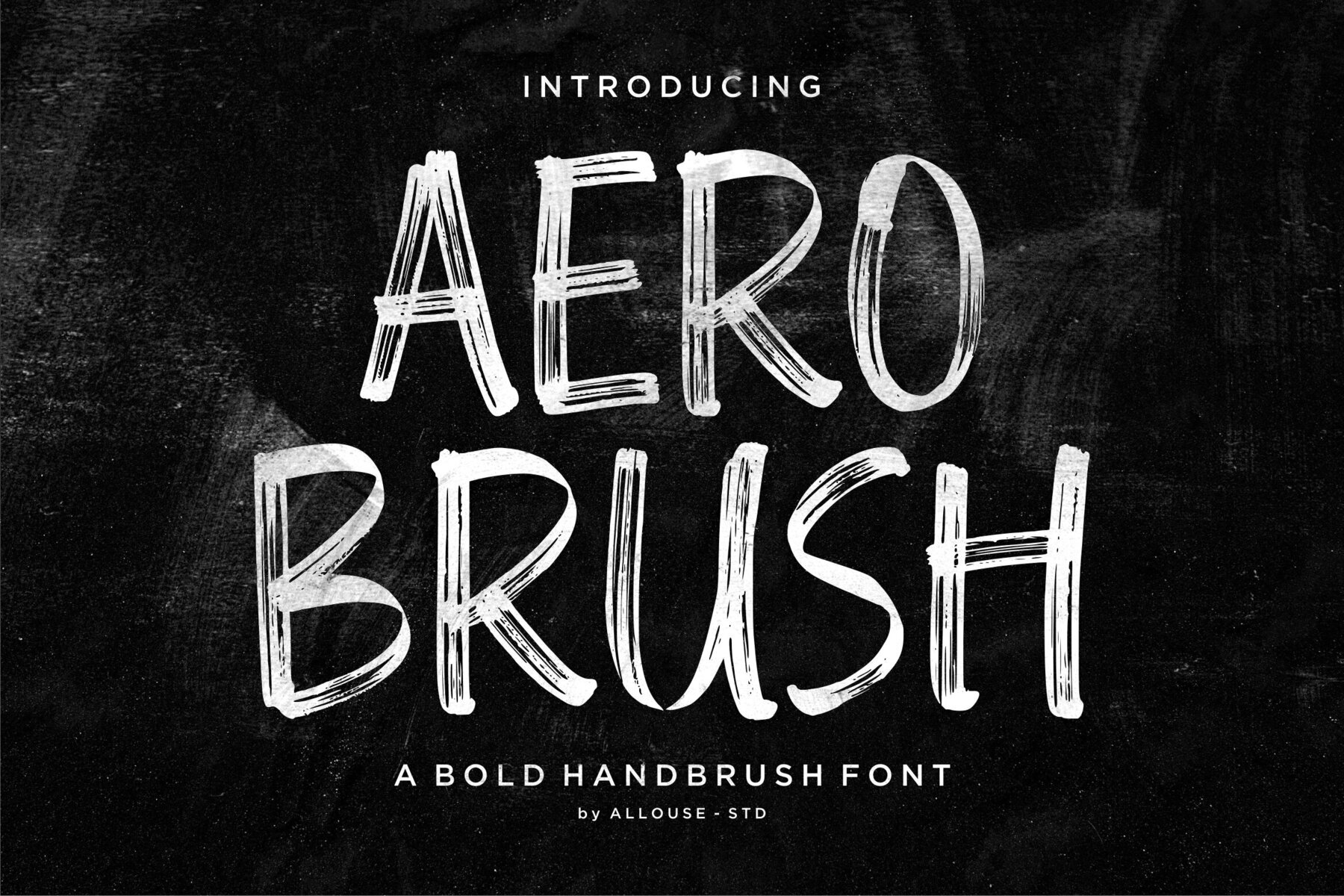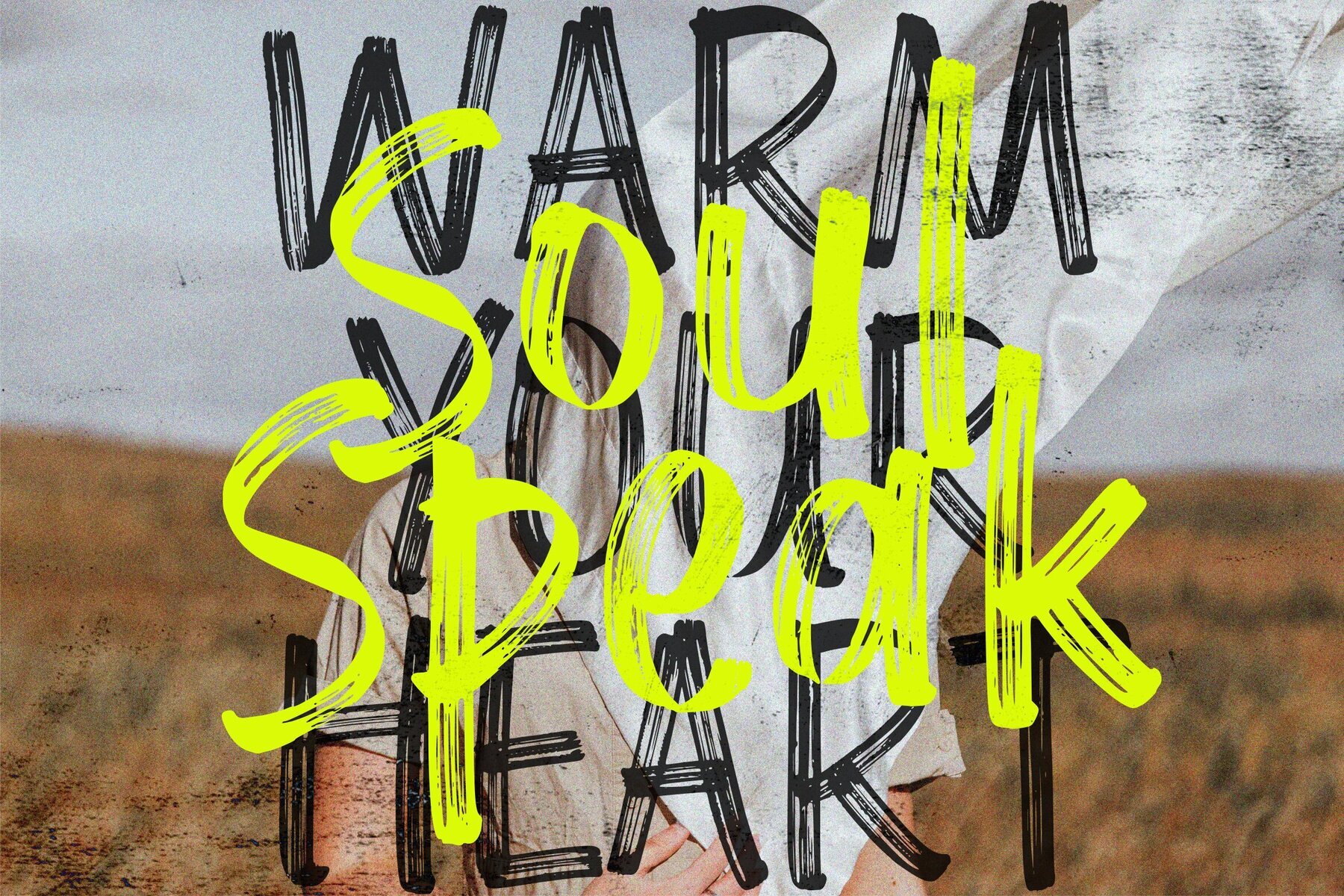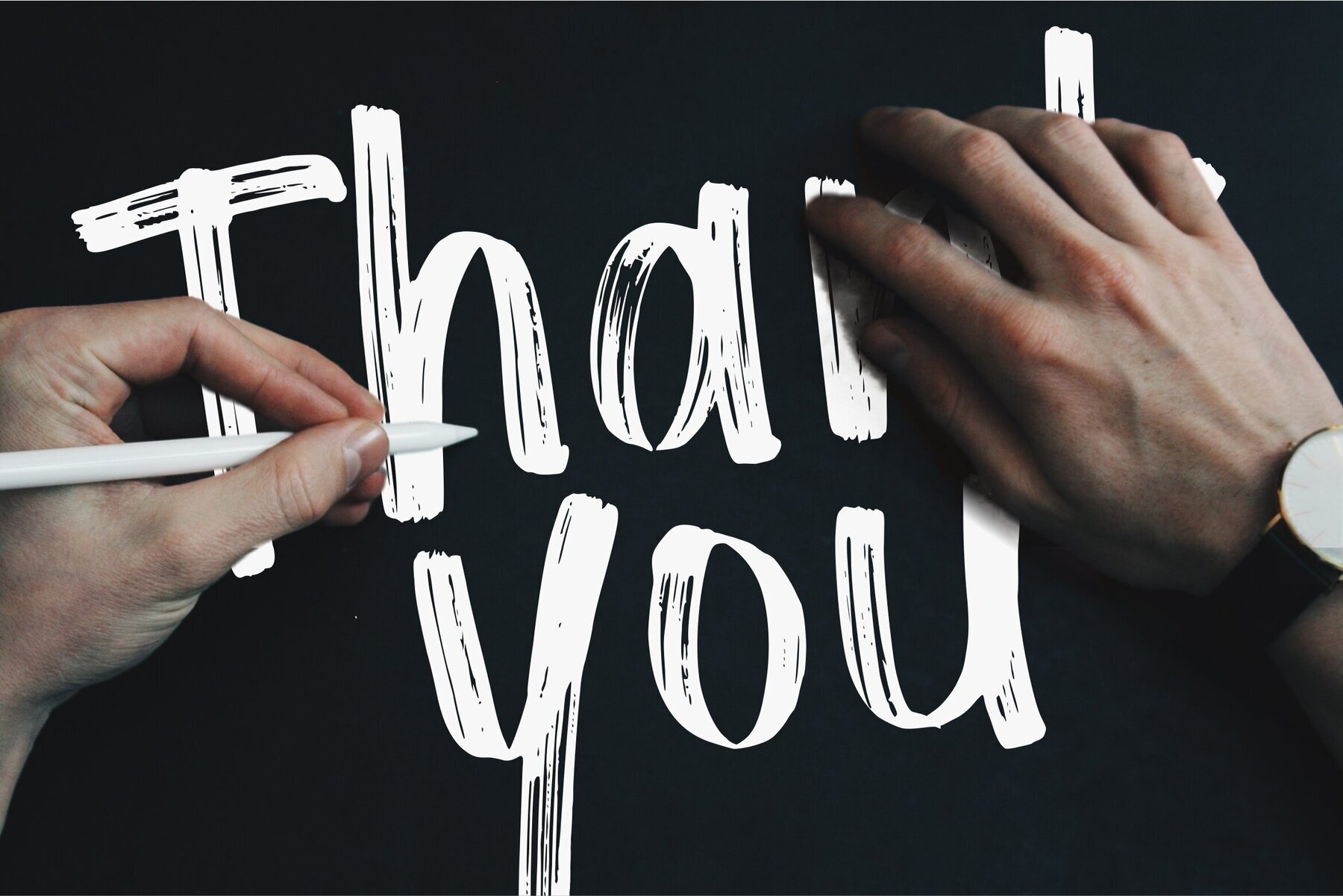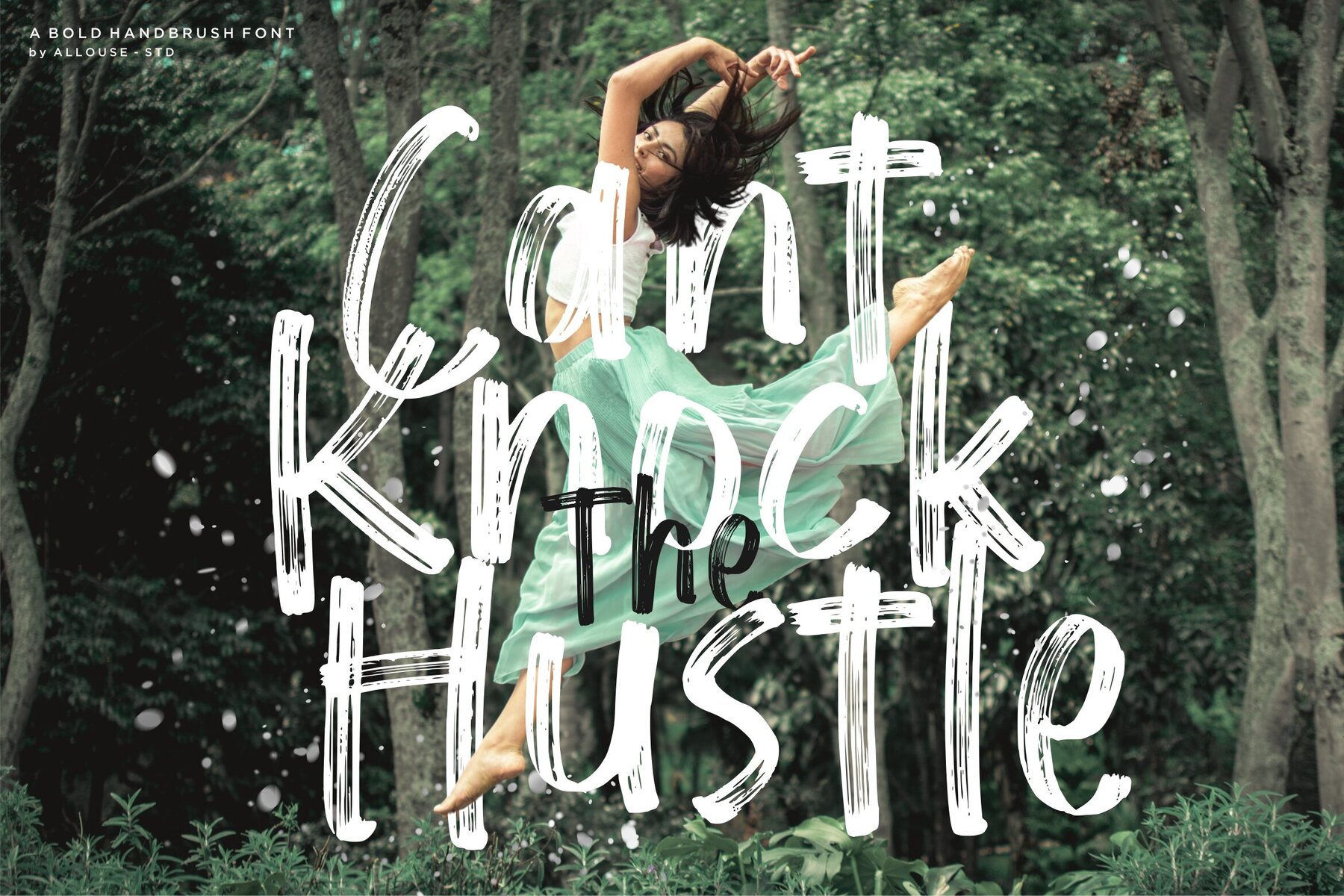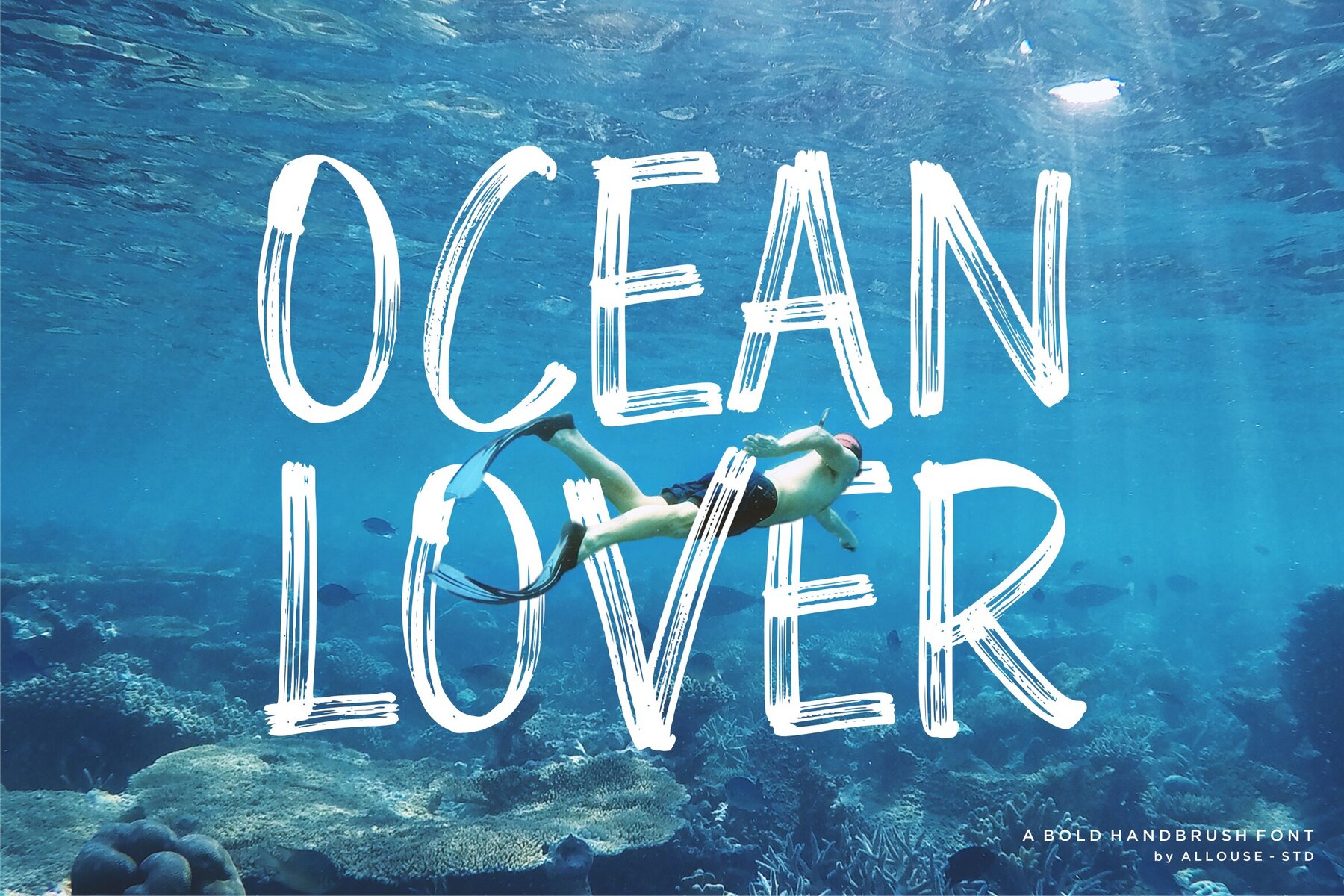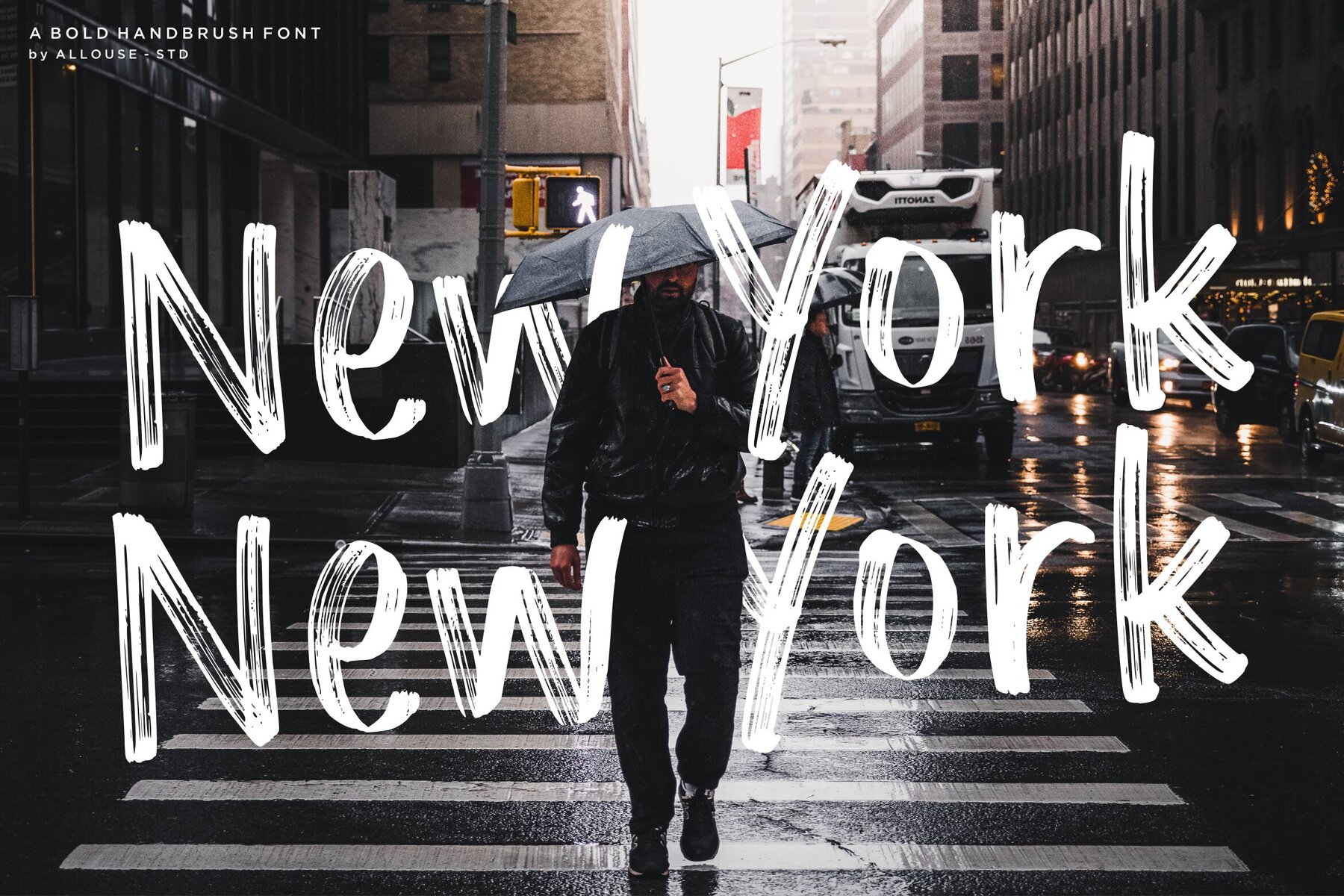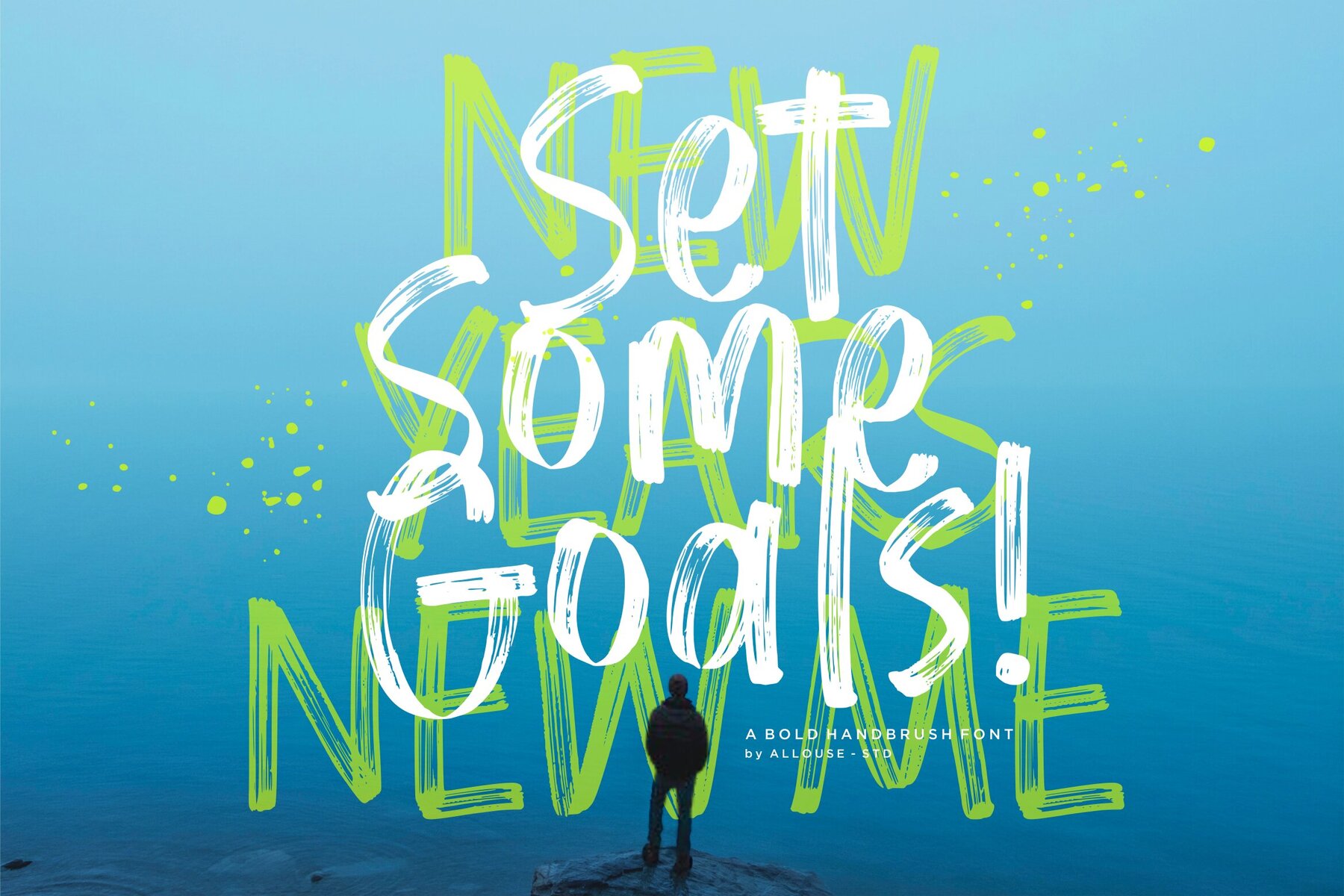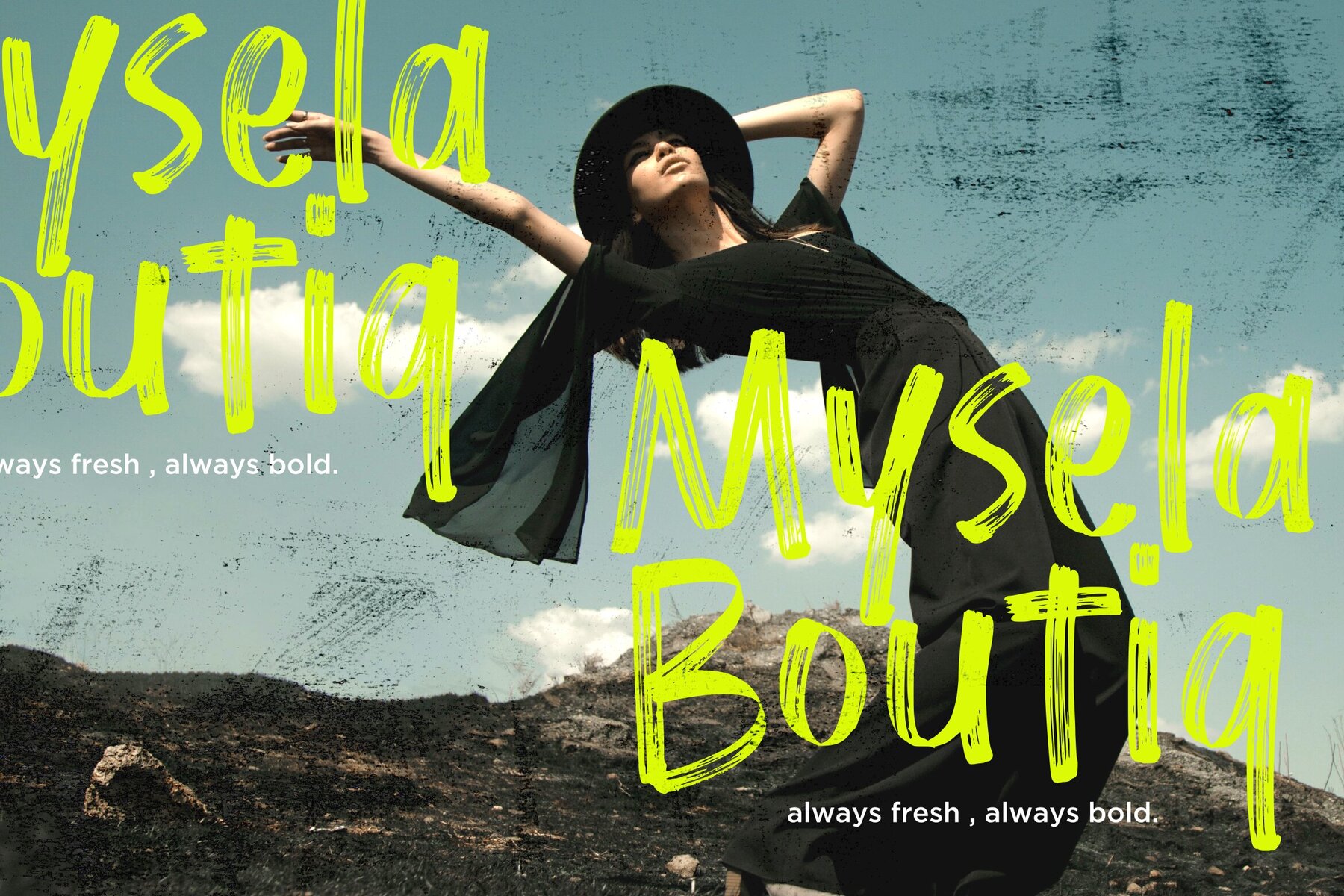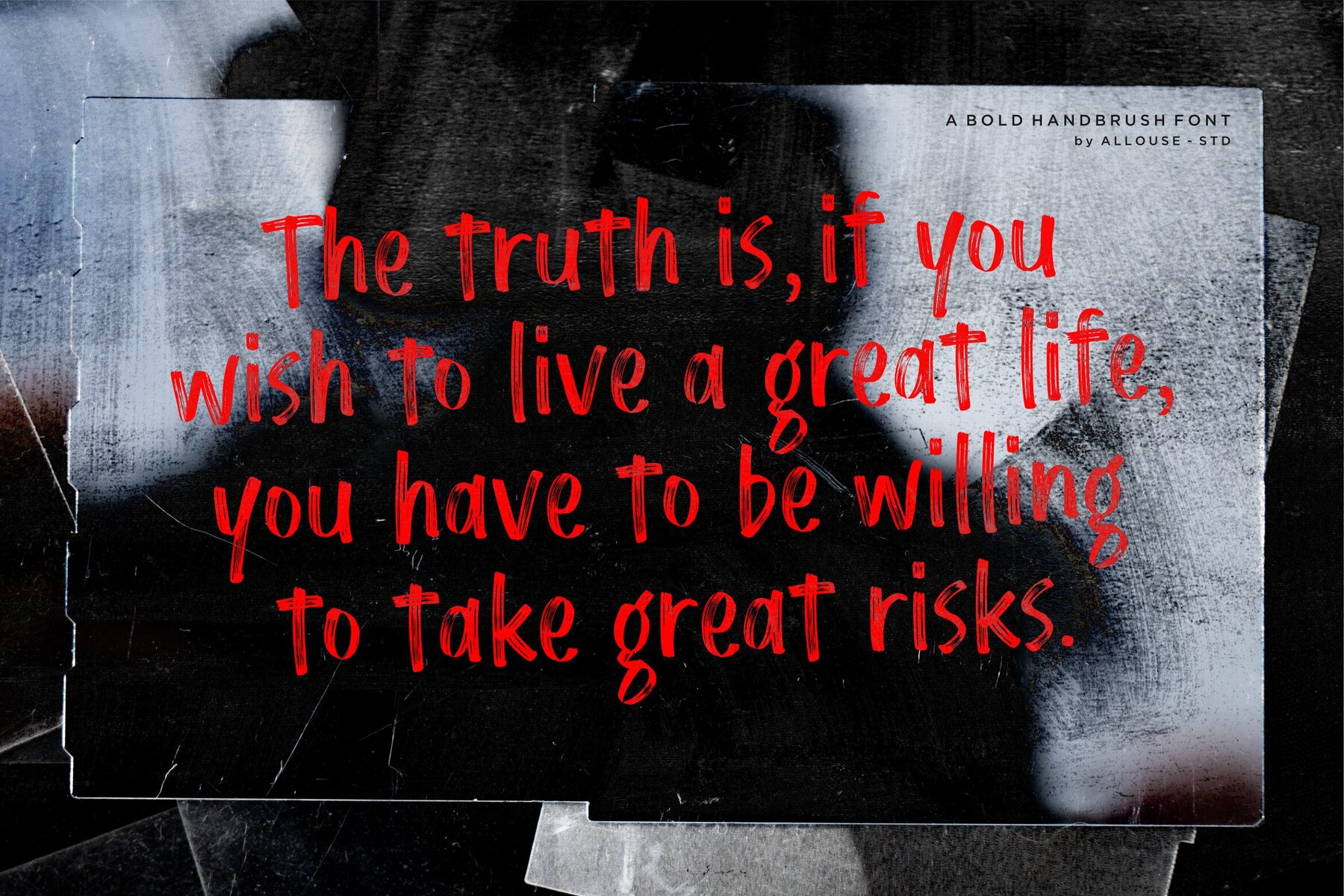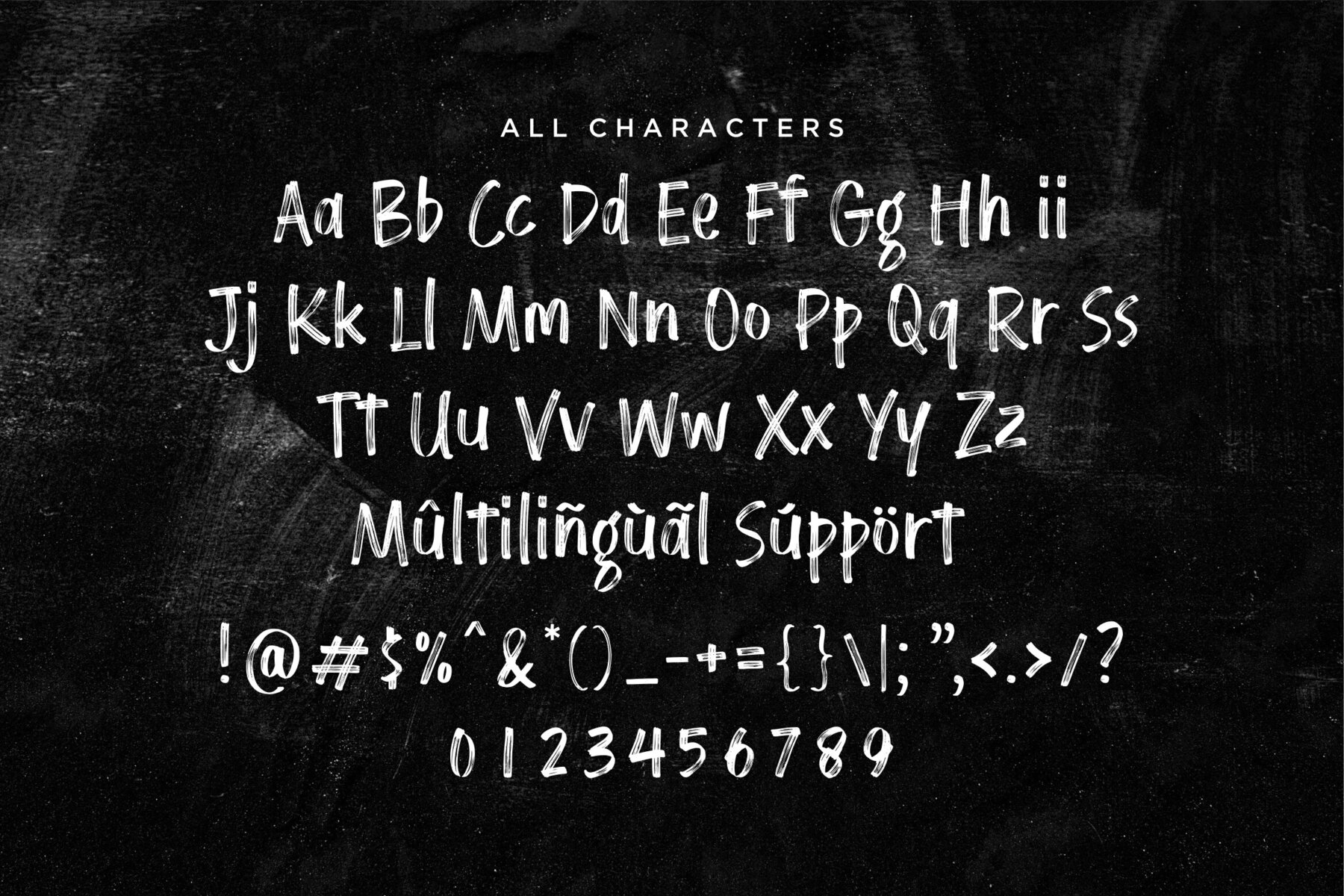
Aero Brush Font
Aero Brush is an expressive handwritten brush font that adds a personal touch to any design. It's ideal for a range of projects, including product packaging, branding, magazines, social media graphics, and weddings, or simply for overlaying text on backgrounds.Aero Brush: Handwritten Brush Font for Creative Projects